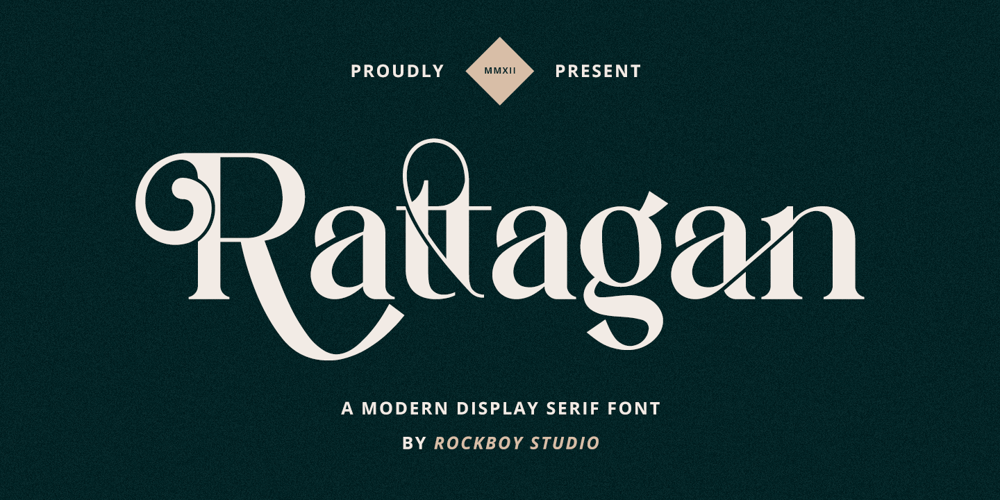
Rattagan Font Family was designed by Hayinah and published by Rockboys Studio. Rattagan contains 1 styles and family package options. Rattagan is an elegant and sophisticated serif font. Suitable for a wide variety of designs due to its neat and fashionable style, this font has the potential to become your favorite go-to font, no matter the occasion!